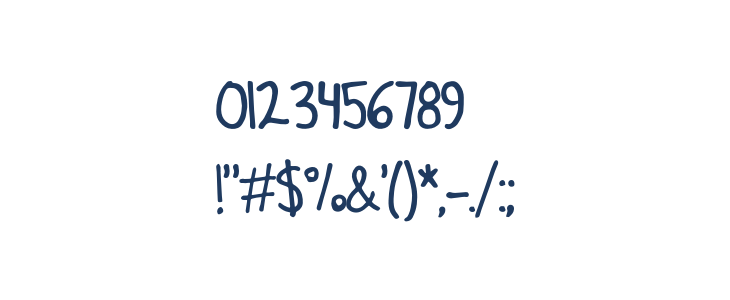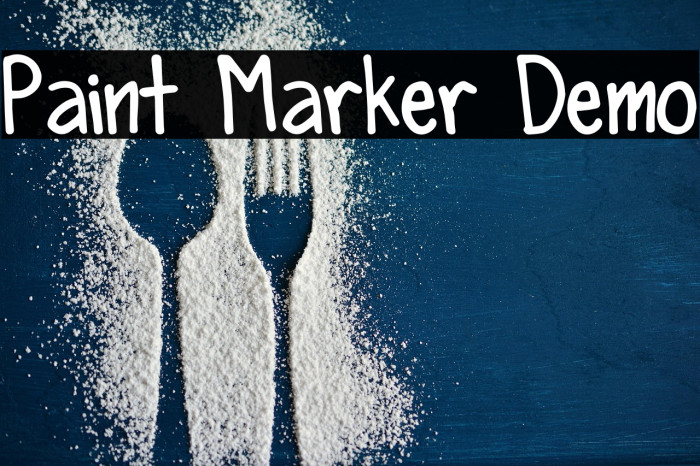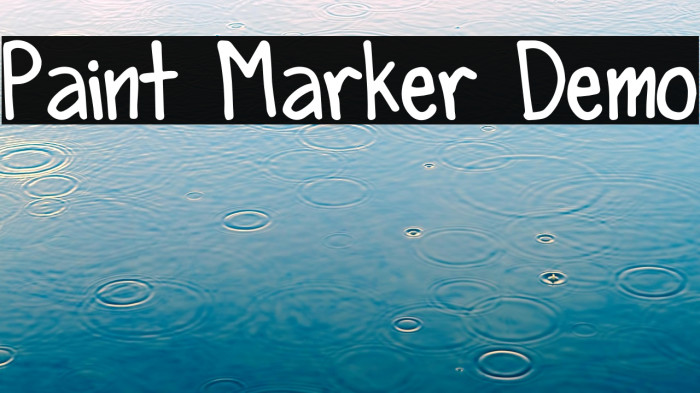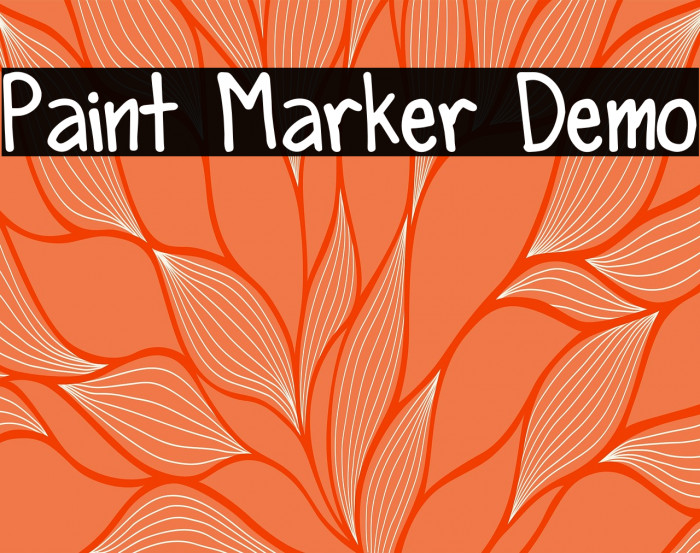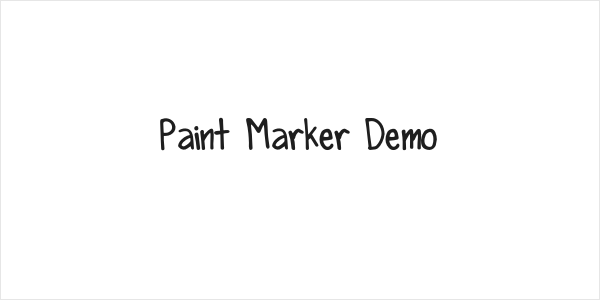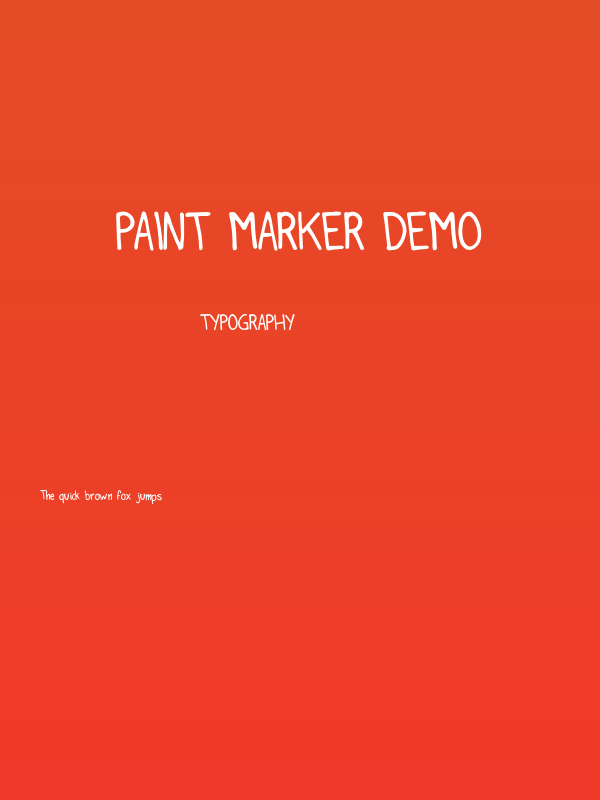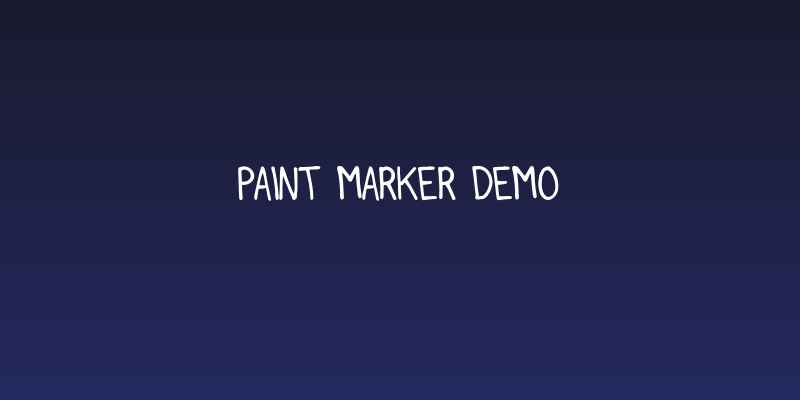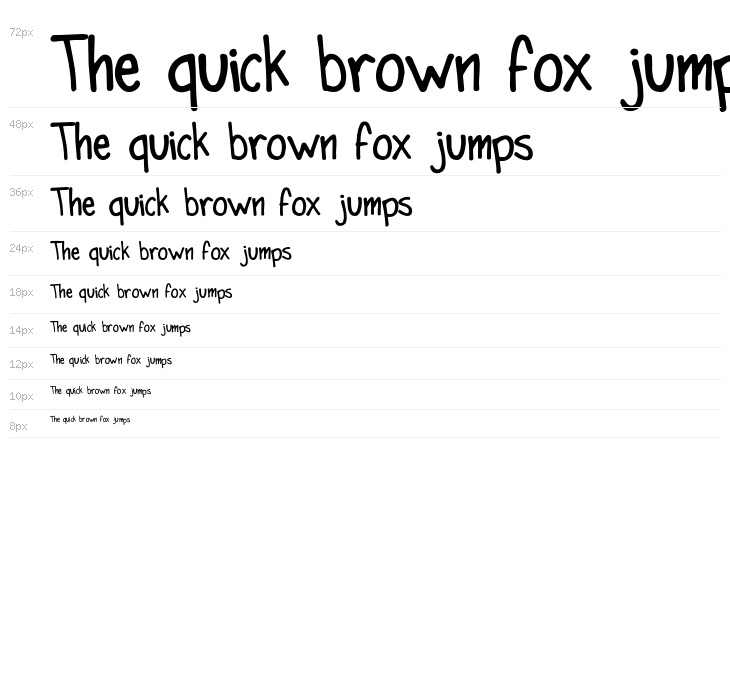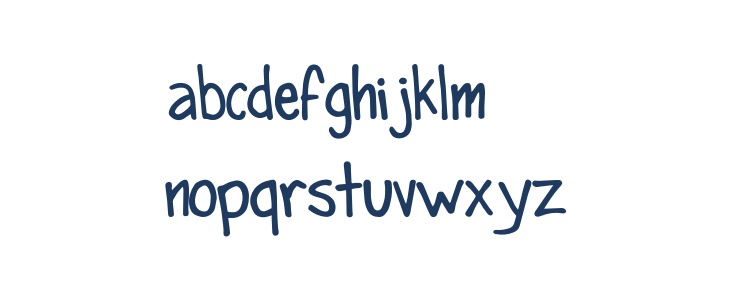
Paint Marker Demo Font
Paint Marker Demo Description
This font exudes a playful and casual vibe, reminiscent of handwriting with a paint marker. The characters are bold and rounded, with a slightly uneven baseline that adds to its informal charm. The strokes are consistent in width, giving it a uniform appearance despite its hand-drawn style. The uppercase letters are tall and prominent, while the lowercase letters maintain a friendly and approachable look. The numerals and special characters are crafted with the same playful touch, ensuring cohesion across all elements.
| Use Case | Headlines, Posters, Branding |
| Proposed Projects | Ideal for children's book covers, playful branding, casual invitations, and creative posters. |